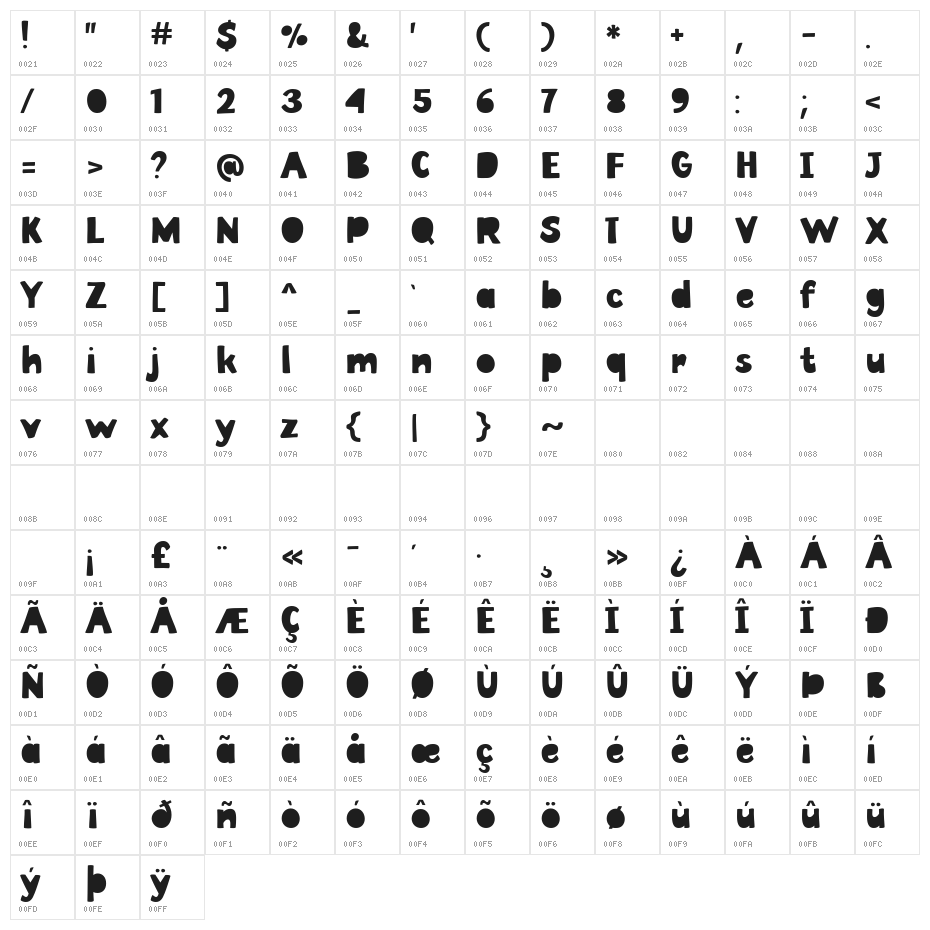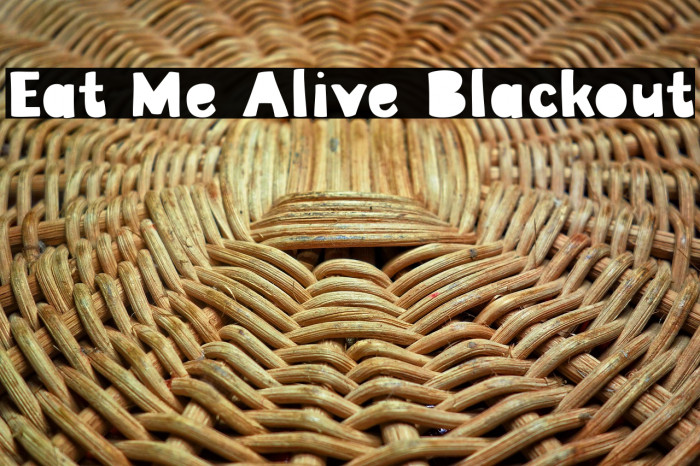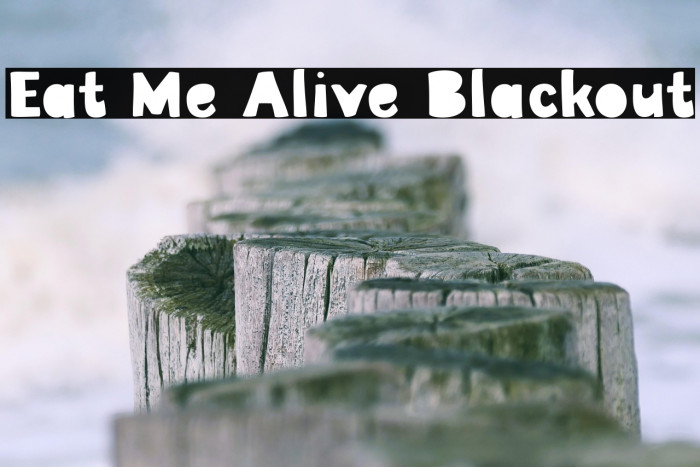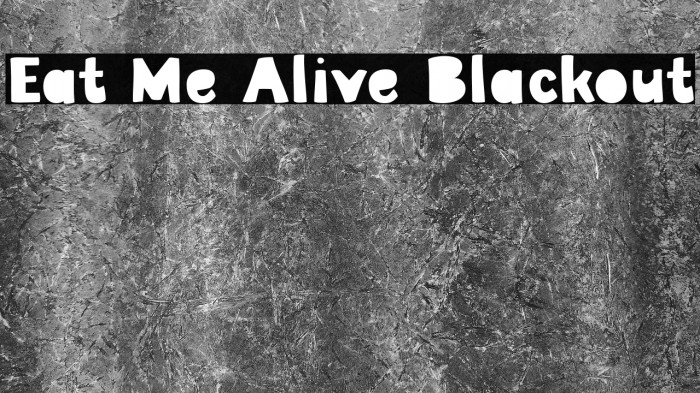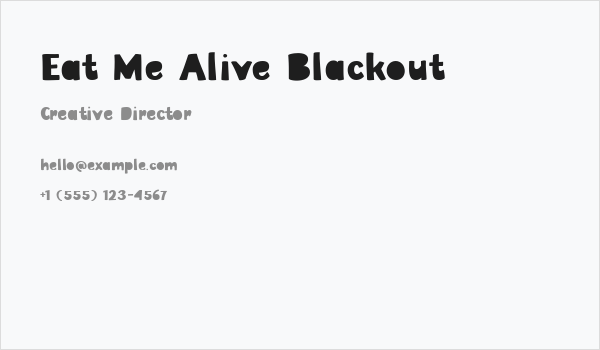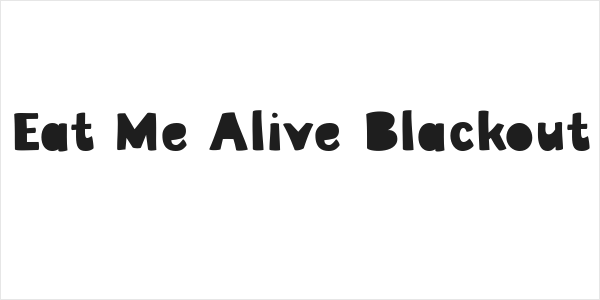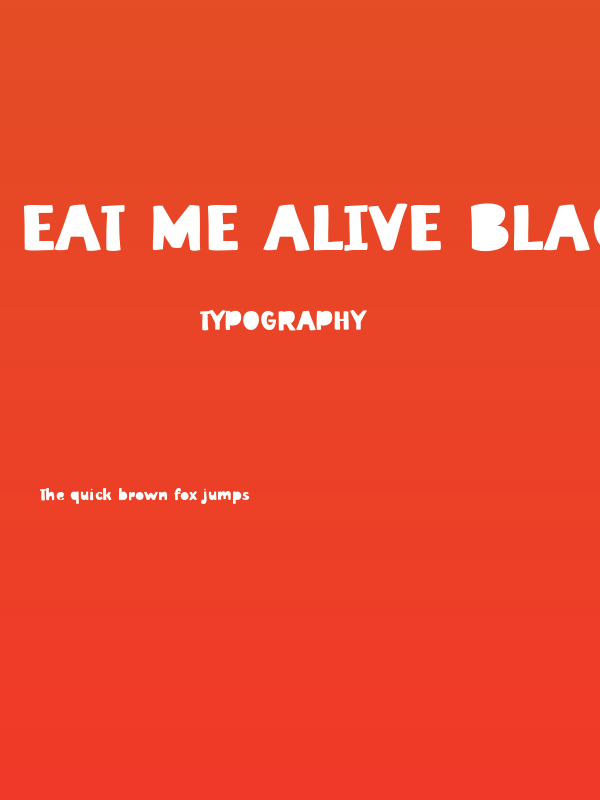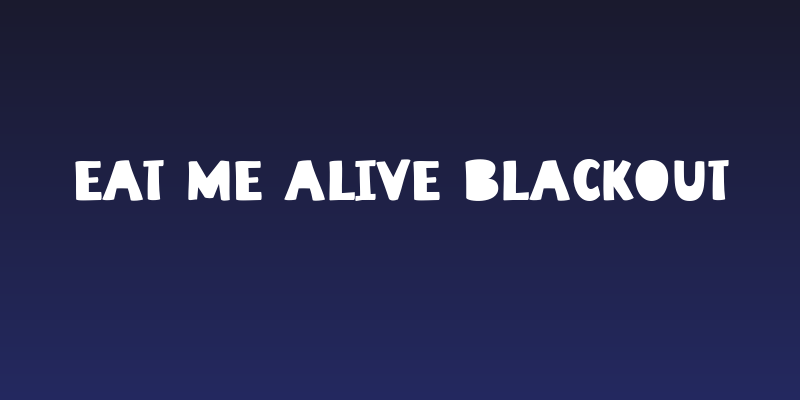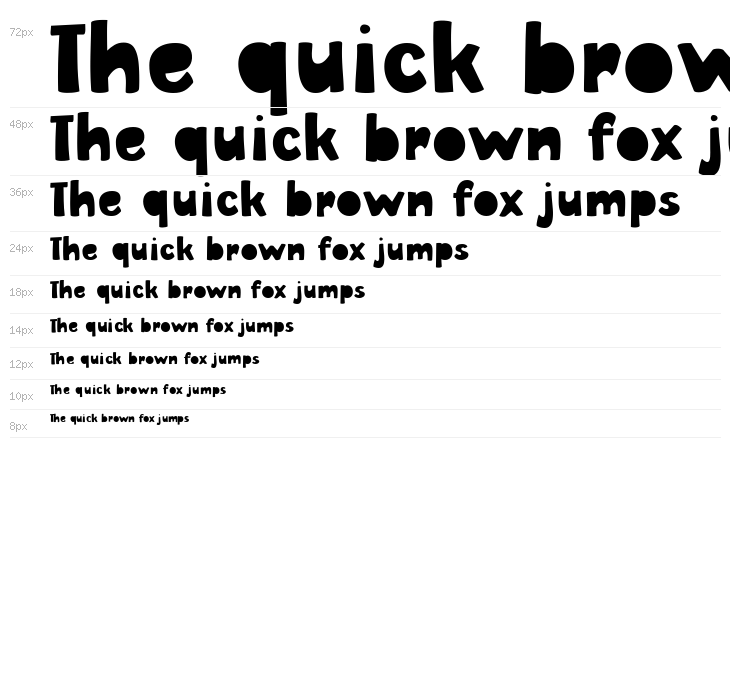
Eat Me Alive Blackout Font
| Overall Style | Playful, Quirky, Hand-drawn, Decorative |
| Use Case | Headlines, Posters, Logos, Children's materials |
| Proposed Projects | Children's books, posters, party invitations, comic titles, branding for playful products. |